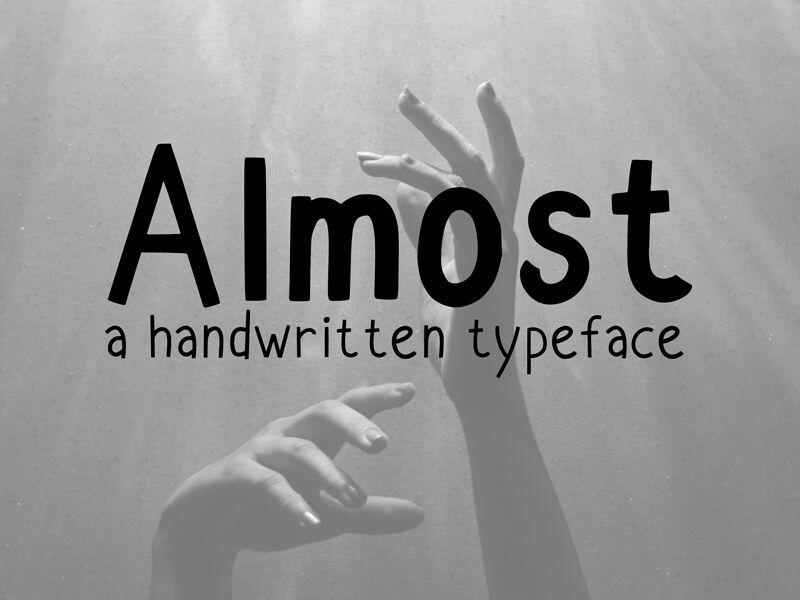
AlmostBold
Almost Bold font by Mad is the ideal tool to create energetic designs full of character and live appearance. This display free font owns a relaxed look and it goes straight to the reader with its bold yet fun characters. It gives off an approachable feel which can easily gain a client’s trust in brand advertising.
Bring attention to your blog or use Almost Bold for creative writing on covers, idea journals, catalogs, invitations, postcards, flyers, handouts and many other print projects. Consistently bring large typography projects such as posters and more! After all that’s what display fonts do best!